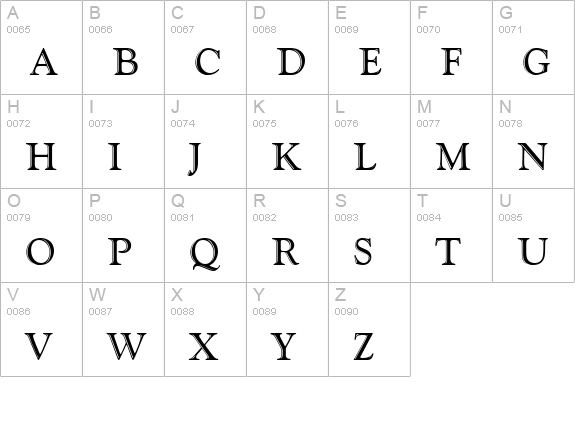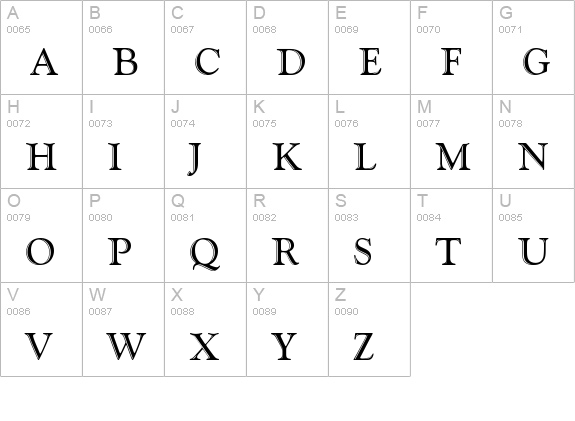
GoudyHanD Font Details
GoudyHanD is a classic serif font that exudes elegance and sophistication. Its timeless design makes it perfect for a wide range of projects, from invitations to branding materials. The font features delicate serifs and a balanced weight distribution, creating a harmonious and polished appearance. What sets GoudyHanD apart is its versatility - it can be used for both formal and informal settings, making it a go-to choice for designers looking for a versatile serif font. Whether you're working on a wedding invitation or a corporate brochure, GoudyHanD is sure to add a touch of refinement to your design. The best part? GoudyHanD is available for free download at FontsMarket.com. Simply visit the website to add this timeless font to your collection and elevate your design projects with its classic charm.